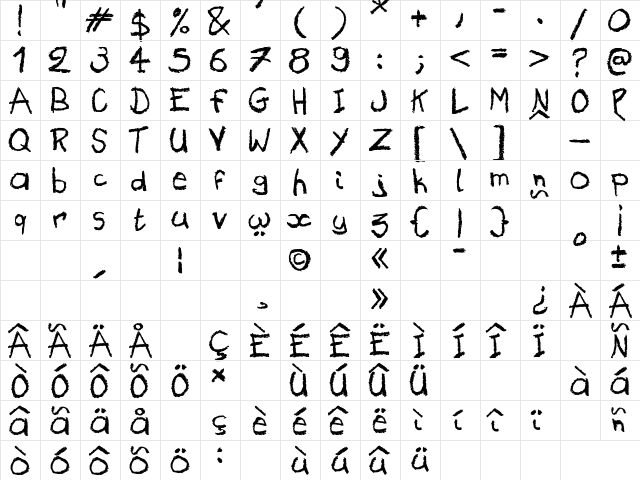
Holidays Homework Regular
Design Context for Holidays Homework Typeface
Holidays Homework is a composed and adaptable typeface that performs quietly and consistently across a wide range of design contexts.